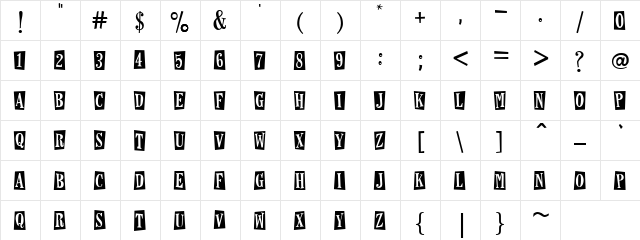
Horseshoes And Lemonade Regular Free Font
Horseshoes And Lemonade Regular
Design Context for Horseshoes And Lemonade
Horseshoes And Lemonade is a composed and adaptable typeface that performs quietly and consistently across a wide range of design contexts.